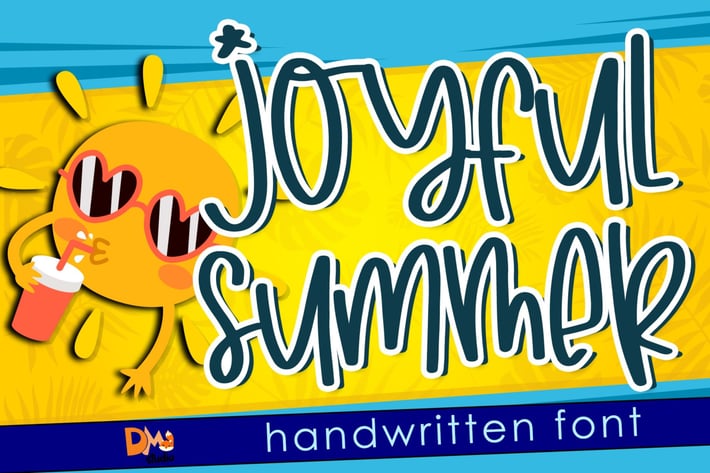
Joyfull Summer - Handwritten Font
Joyful Summer is a quirky, and unique with messy look handwritten font. Make your design more cheerful with this stylish font!
Mix case characters set
Numeric
Symbols